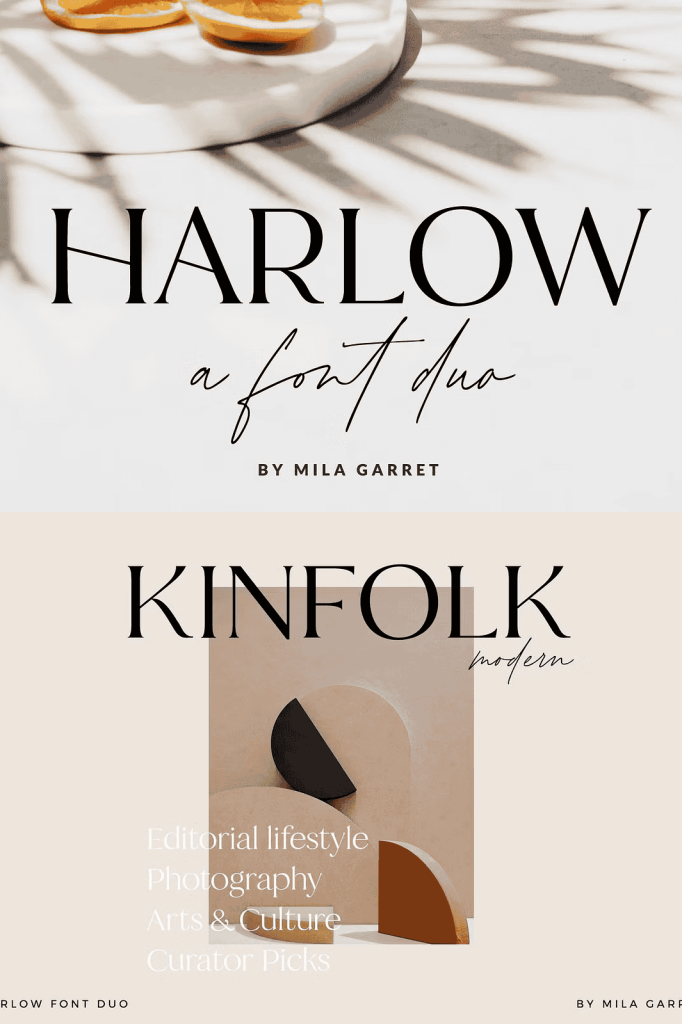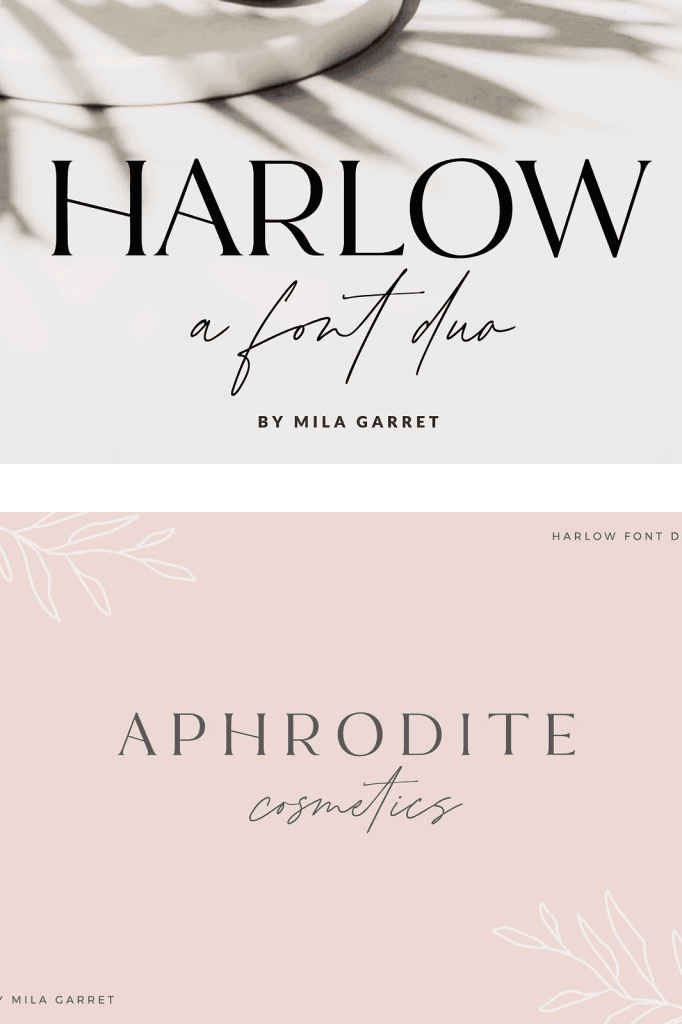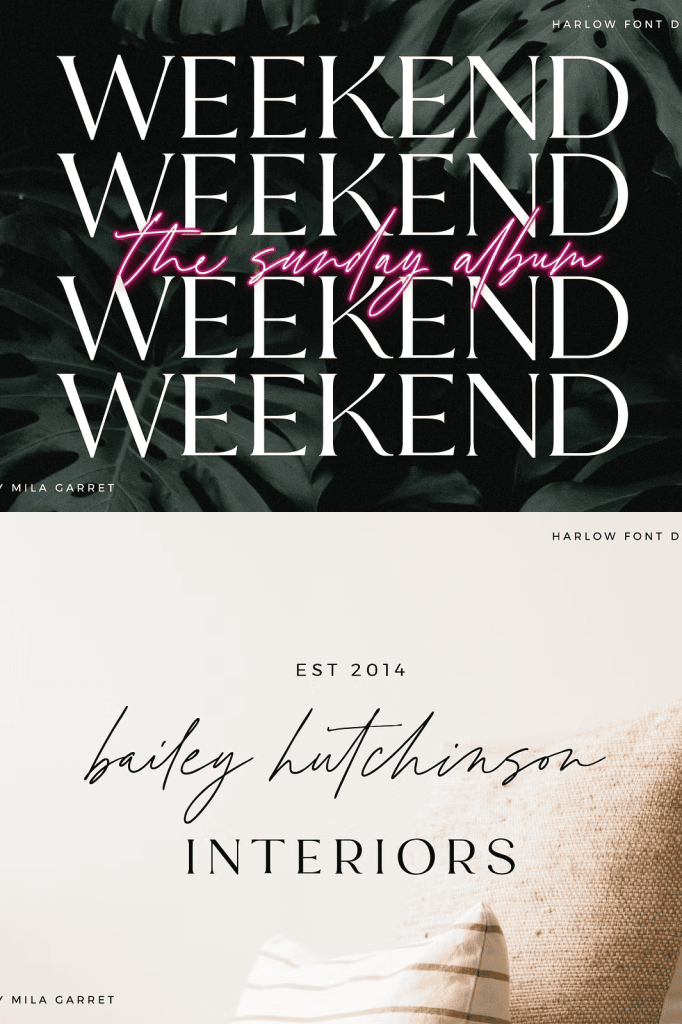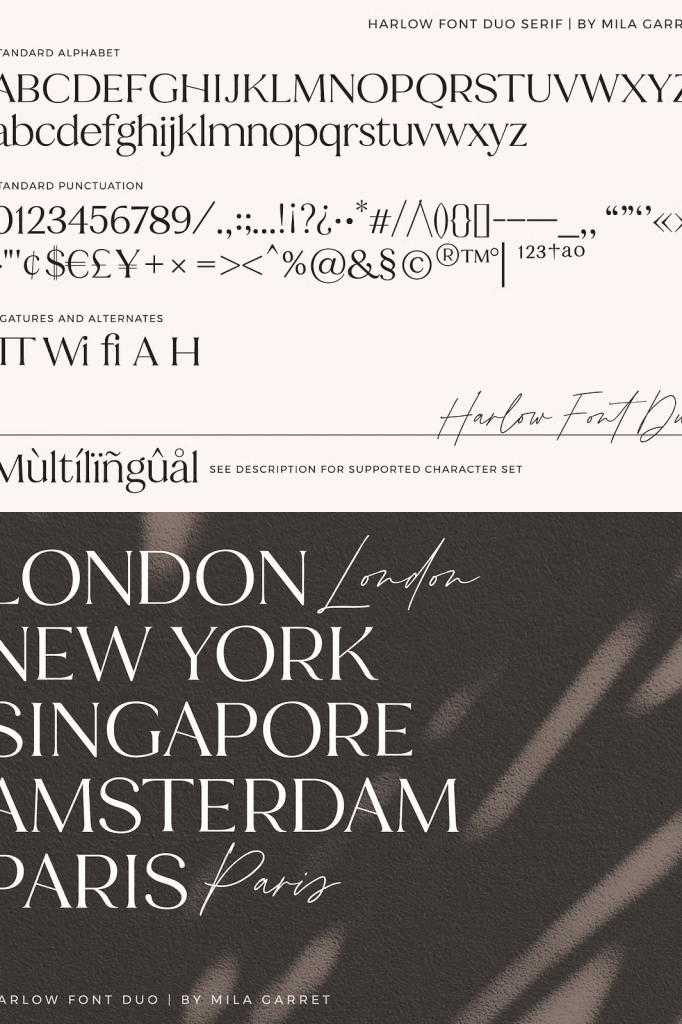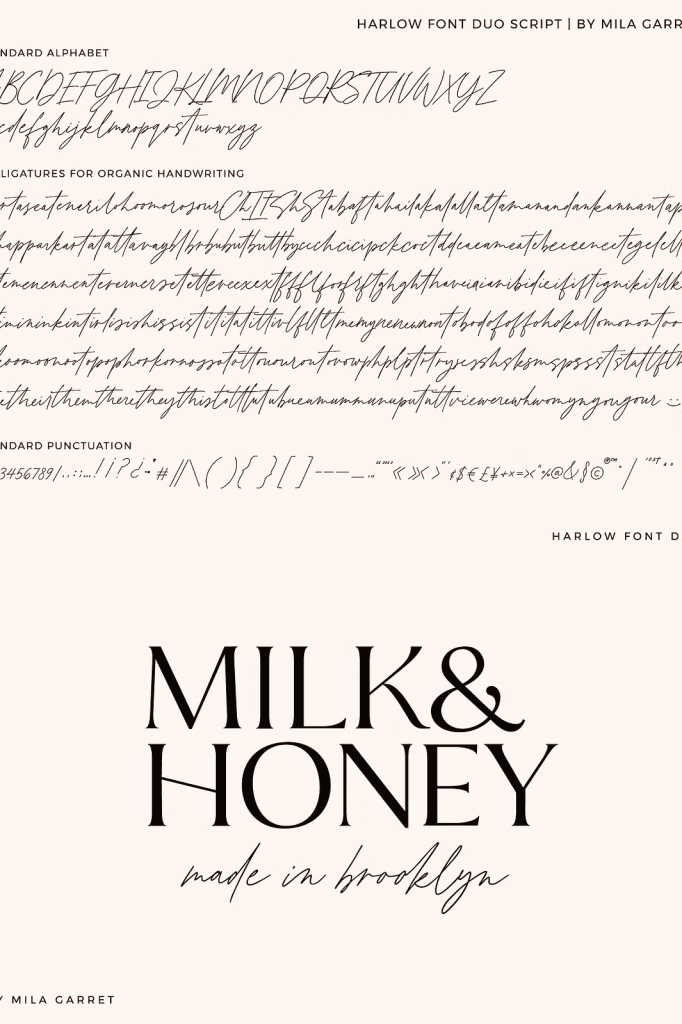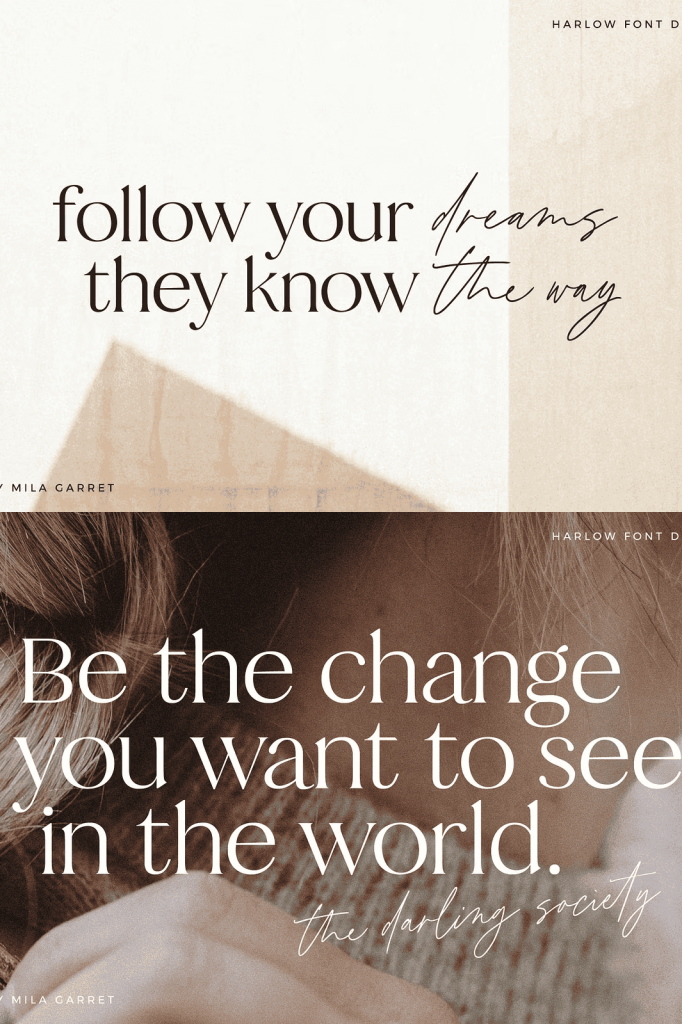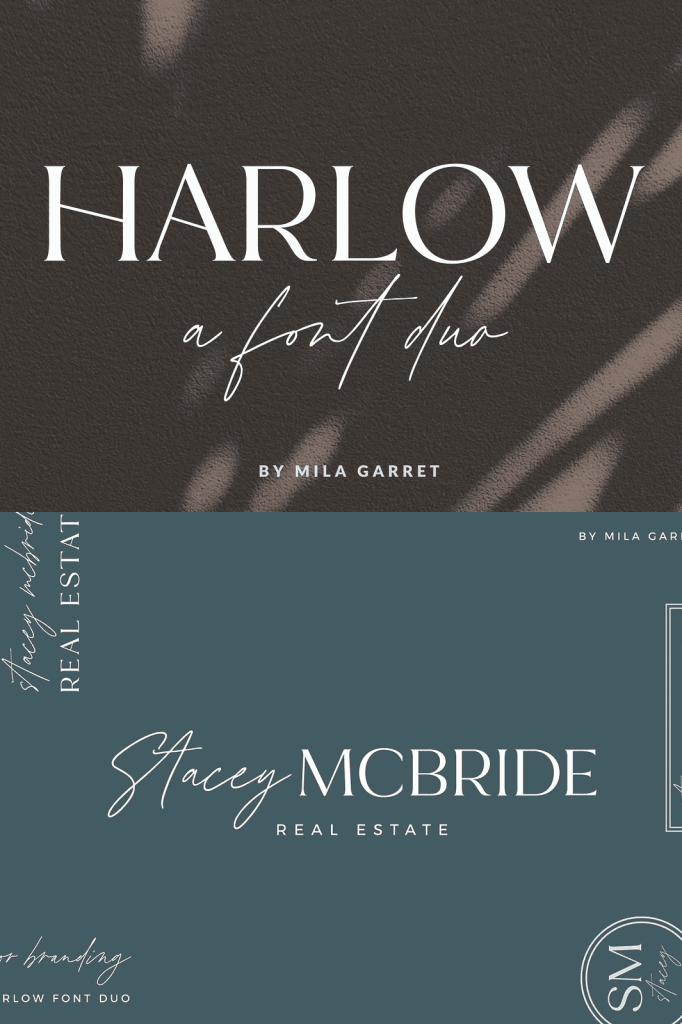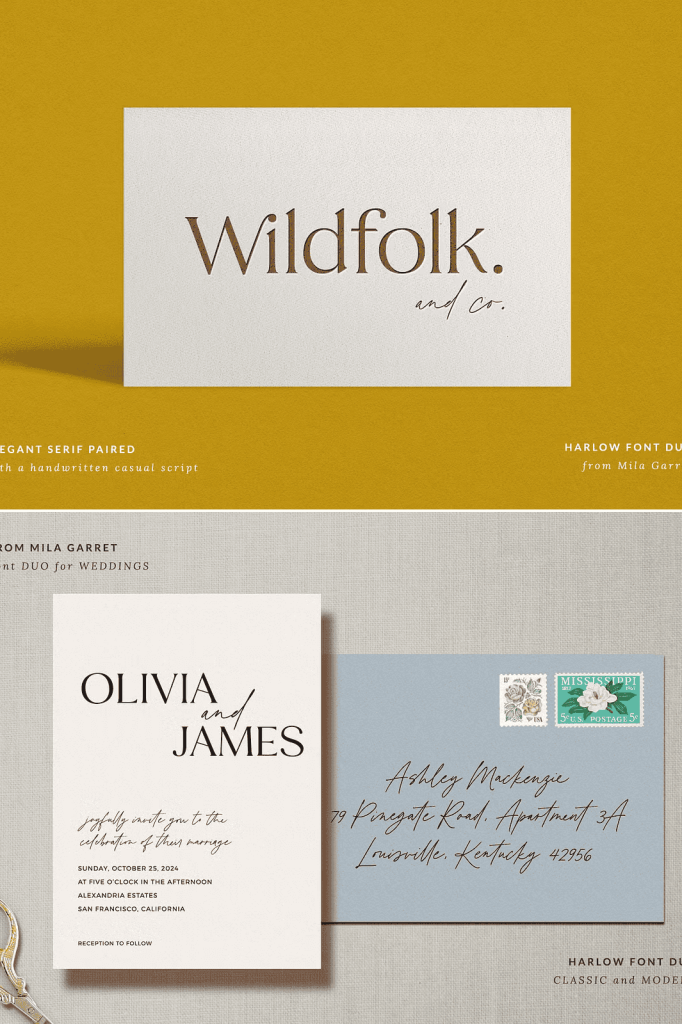
Harlow Font Duo: Elegant Serif and Handwritten Script Combination
A Sophisticated Font Pairing for Modern Design
Harlow Font Duo delivers a refined combination of two complementary styles: an elegant serif typeface and a casual handwritten script. This pairing allows designers to create visually balanced compositions that feel both polished and personal. The serif font introduces structure and clarity, while the script adds warmth and expressive character.
This font duo works seamlessly across modern design projects. It brings a clean, minimal aesthetic that enhances readability while maintaining a luxurious tone. Whether you want to design a professional website or craft a stylish logo, Harlow Font Duo provides the flexibility to achieve a cohesive and attractive result.
Modern Minimalism with a Luxurious Feel
Harlow Font Duo stands out by combining simplicity with elegance. The serif typeface uses clean lines and balanced proportions to create a timeless appearance. Meanwhile, the handwritten script adds a natural flow that feels authentic and engaging. Together, they create a visual contrast that captures attention without overwhelming the design.
This combination reflects current design trends where minimalism meets personality. You can use the serif for headlines and structure, while the script introduces emphasis, highlights, or decorative accents. This approach allows you to maintain clarity while adding a unique touch to your designs.
Key Features of Harlow Font Duo
- Elegant serif font with modern and minimal styling
- Casual handwritten script with natural flow
- 187 ligatures in the script font for a realistic handwritten appearance
- Unique capital letters, including distinctive A and H styles
- Alternate characters for flexibility and customization
Unique Typography Details That Stand Out
Harlow Serif introduces subtle design details that elevate its personality. The capital letters A and H feature quirky, eye-catching forms that make headlines more distinctive. For designers who prefer a more traditional look, standard alternate versions are included, giving you complete control over the final appearance.
The Harlow Script enhances customization with 187 carefully crafted ligatures. These ligatures connect letters smoothly, creating a natural handwritten effect that feels personal and refined. This feature allows you to produce typography that looks less mechanical and more like authentic handwriting.
Versatile for a Wide Range of Creative Projects
Harlow Font Duo adapts easily to various creative needs. Its combination of structure and fluidity makes it suitable for both formal and expressive designs. You can use it to build strong visual identities while maintaining a friendly and approachable tone.
Ideal Applications
- Modern logos and branding identity
- Website headers and digital content
- Social media quotes and promotional graphics
- Wedding invitations and stationery
- Editorial layouts and lifestyle branding
Create Memorable Designs with Effortless Style
Harlow Font Duo gives designers the tools to create impactful visuals with ease. The serif font ensures readability and professionalism, while the script introduces a handcrafted element that adds personality. This balance makes it easier to build designs that feel both elegant and approachable.
If you want to elevate your projects with a modern yet timeless typeface combination, Harlow Font Duo offers a reliable and stylish solution. Its versatility, unique features, and clean aesthetic make it an essential choice for designers who value both form and function.